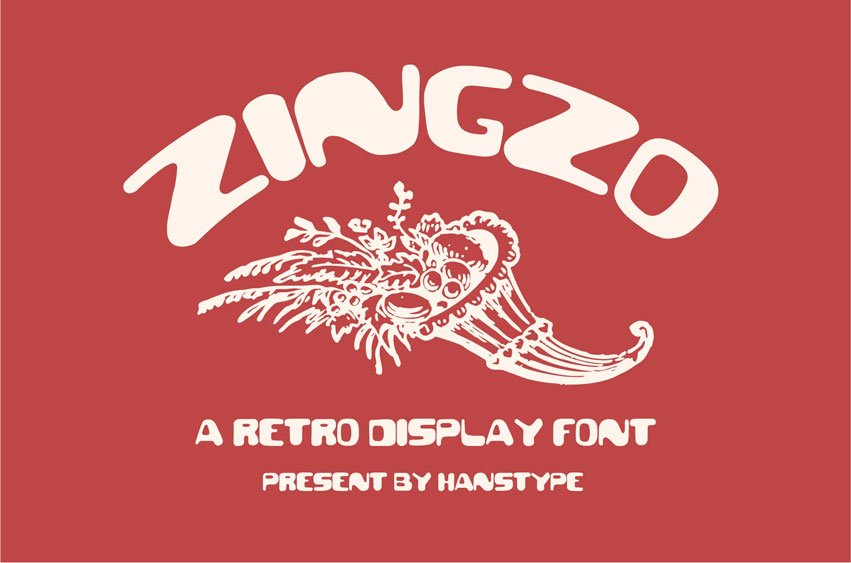
Zingzo Font
Zingzo Font is a hand-drawn, retro-inspired font that captures the bold and playful spirit of vintage typography. With its unique, angular letterforms and dynamic curves, Zingzo brings a fresh, energetic vibe to any design.
Its distinctive, slightly imperfect strokes add character and charm, making it perfect for projects that need to make a statement, such as logos, posters, and branding.